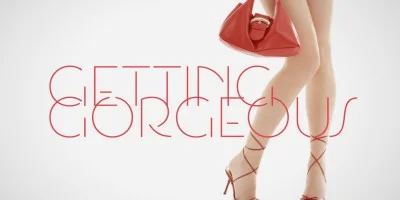
MM Cruella Font
MM Cruella Font is perfect for dramatic fashion campaigns, avant-garde beauty brands, bold luxury accessories, edgy entertainment venues, sophisticated villain-themed events, and high-fashion editorial design. Its striking character makes it ideal for cutting-edge fashion houses, dramatic theater productions, bold cosmetics lines, luxury dark fashion brands, rebellious music labels, and any project requiring fierce sophistication with dramatic flair and unapologetic boldness.
This font is exciting because it captures the essence of dramatic elegance and sophisticated rebellion while delivering exceptional functionality for luxury brands that dare to be different. The powerfully crafted letterforms embody confidence, drama, and the courage to embrace one's darker side with style, creating typography that commands attention and resonates with audiences who appreciate bold fashion statements and uncompromising individual expression.
The MM Cruella Font family typically includes Light, Regular, Medium, and Bold weights with dramatic alternates, theatrical ligatures, and bold decorative elements that enhance its striking personality. This comprehensive collection provides fashion professionals with powerful tools for creating memorable brand systems that maintain luxury credibility while offering creative flexibility for various high-fashion applications requiring dramatic impact and sophisticated edge.
Whether you're developing identity systems for avant-garde fashion brands, creating materials for dramatic entertainment productions, or designing campaigns for bold luxury products, MM Cruella Font delivers the dramatic sophistication and fierce elegance that connects with audiences seeking bold self-expression and luxury rebellion. Its commanding presence ensures unforgettable brand recognition across digital platforms and print materials, making it perfect for websites, mobile applications, and fashion campaigns that celebrate dramatic beauty, sophisticated rebellion, and the transformative power of embracing one's bold side with contemporary luxury standards and unapologetic dramatic flair.